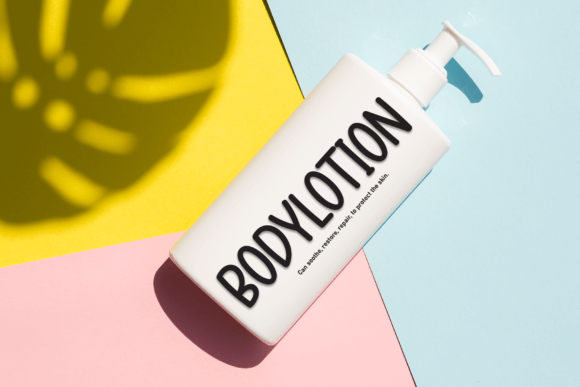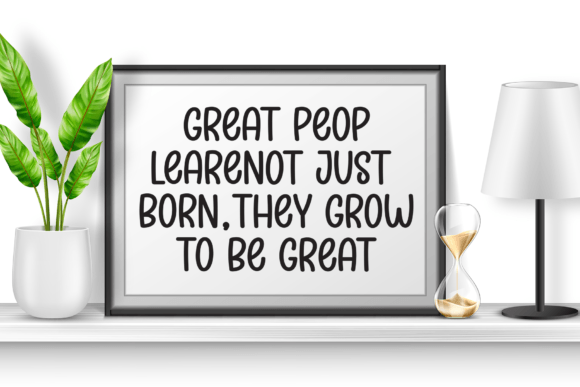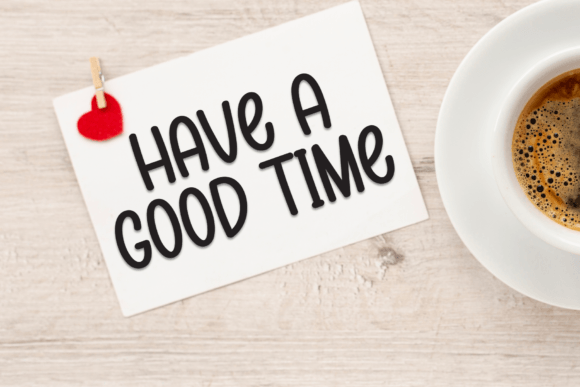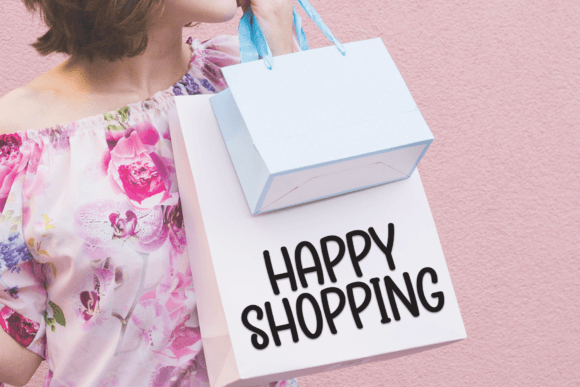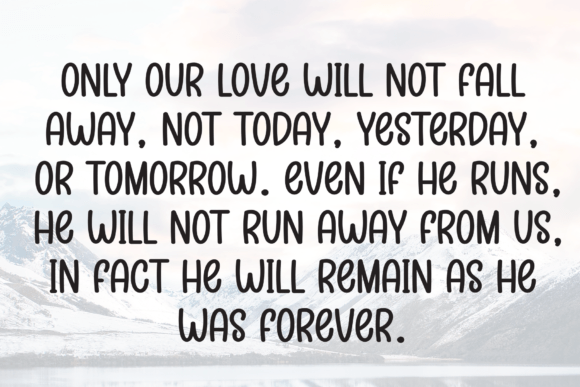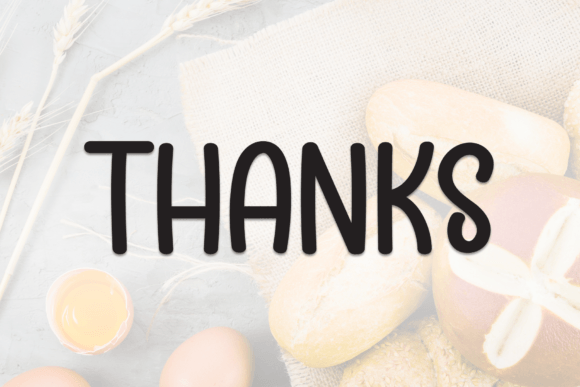
The Perfect Slice of Creativity: Introducing Bread Summer Font
Have you ever stared at a blank page, feeling like the perfect idea is just out of reach? That’s where the magic happens – when inspiration strikes, and your imagination runs wild. For designers, it’s that spark of creativity that sets the wheels in motion, and the right font can be the catalyst. Enter Bread Summer Font, a sweet and friendly handwritten font that’s about to become your new go-to companion.
With its natural and unique style, Bread Summer Font is the perfect fit for a wide range of designs. Whether you’re crafting a wedding invitation, a children’s book, or a social media campaign, this font is sure to bring a touch of warmth and personality to your work. As a valuable addition to any designer’s toolkit, Bread Summer Font is the ultimate creative partner that will help you bring your ideas to life.
Bread Summer Font Key Features
- Font Family: Bread Summer Font is a sans-serif font designed for modern and clean typography.
- Unique Characteristics: Bread Summer Font features a unique blend of modern and vintage elements, with subtle rounded edges and a friendly feel.
Bread Summer Font Review
Overall, I have mixed feelings about the “Bread Summer Font”. On one hand, it has its charm. ✨ The unique blend of modern and classic elements makes it stand out from more traditional fonts. The subtle texture and subtle flair at the end of each letter give it a certain whimsy that’s hard to resist.
Here are some things that work well:
- ✨ Unique blend of modern and classic elements
- ✨ Suitable for a variety of applications, from headings to body text
- ✨ Can add a touch of sophistication to designs
However, there are also some limitations:
- ⚠️ May not be suitable for highly technical or formal content
- ⚠️ Can be difficult to read at very small font sizes
- ⚠️ Limited language support
Overall, I think the “Bread Summer Font” is a solid choice for designers looking for a unique, eye-catching font. While it may not be suitable for every project, it can add a touch of personality to designs and help make them stand out. Just be sure to use it in moderation and pair it with clear, readable text for best results.
The Bread Summer Font is perfect for:
- Casual invitations and event branding.
- Food and beverage branding, especially for bakeries and cafes.
- Summer-themed designs and marketing materials.
To get the most out of the Bread Summer Font, remember:
- Pair it with a clean and simple design aesthetic.
- Experiment with different font sizes and colors to create visual interest.
Q: Are there any specific font sizes or resolutions recommended for optimal display of the Bread Summer Font?
For optimal display, it is recommended to use the Bread Summer Font at a minimum size of 12 points and a resolution of 96 dpi or higher. This ensures clear readability and proper rendering of the font’s design elements.